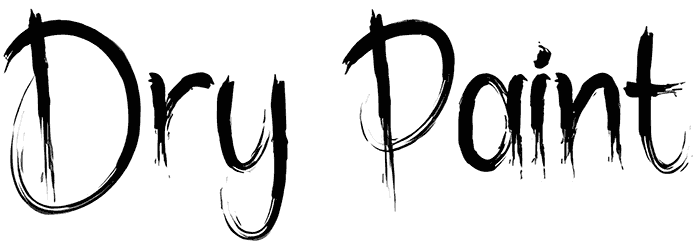
Dry Paint Font
Making a modern and cool visual for the words of your innovative project will help you leave a lasting impression on your viewers. In addition to its capturing form, the Dry Paint font has a scary vibe. So, even without numbers and punctuation marks, you can use it for your projects, like a Halloween flyer, and mesmerize your followers.